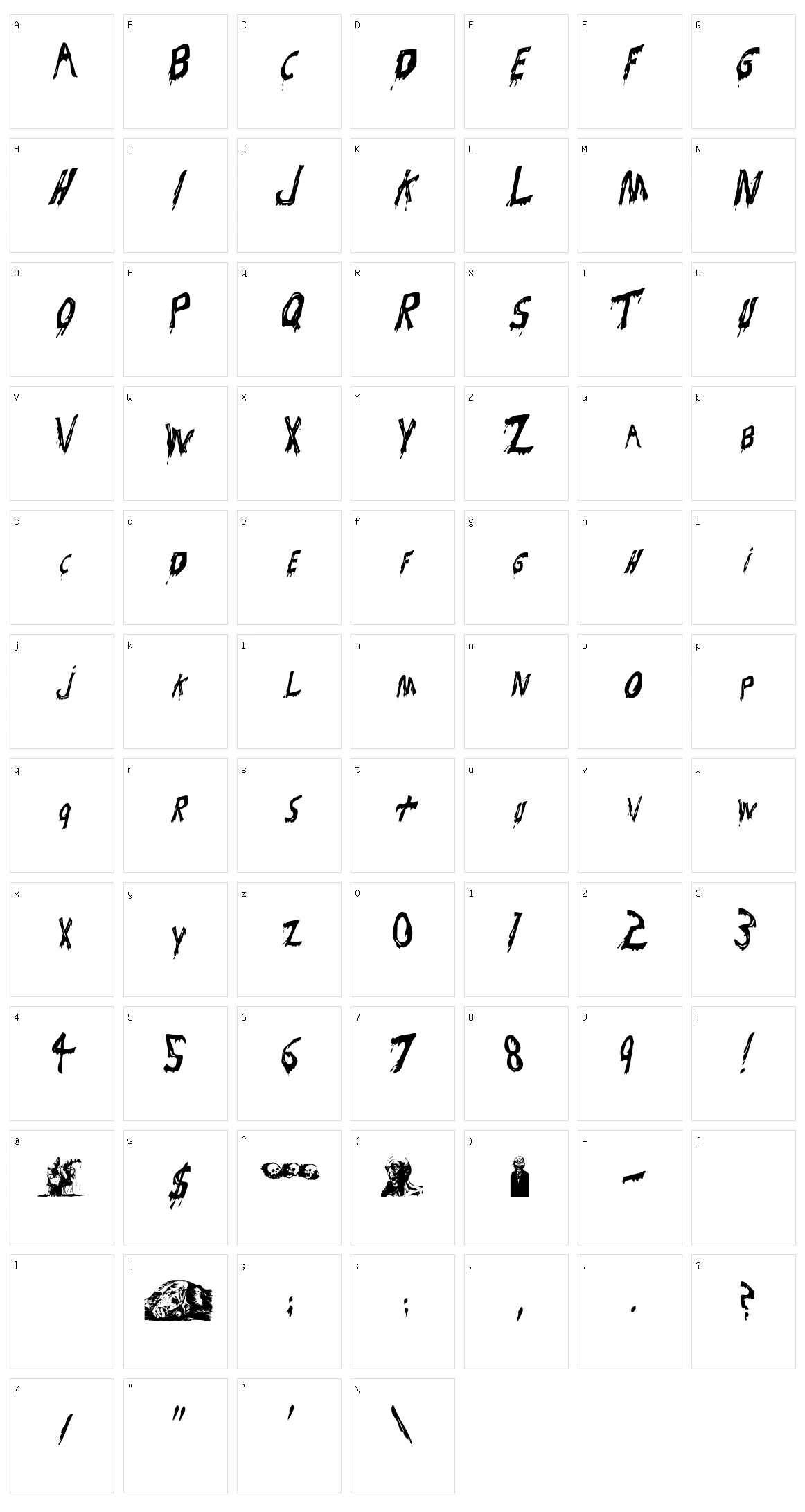
...was hacked into existence by copying the title of a gruesome 50's cheapo horror comic and mad-doctoring the letters that
AREN'T in the words, "BLOOD-SUCKERS" into being.
All numbers and some punctuation are included, as well as five dingbat images:
Shift-6 - ^ ... 3 skulls
left paren - ( ... a ghoul
right paren - ) ... a zombie
bar - | ... a severed head
"At" sign - @ ... a bloody hand pointing right
(Makes really cool "email addresses")